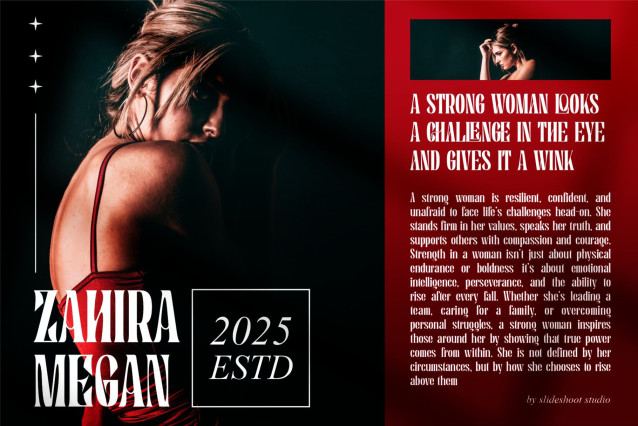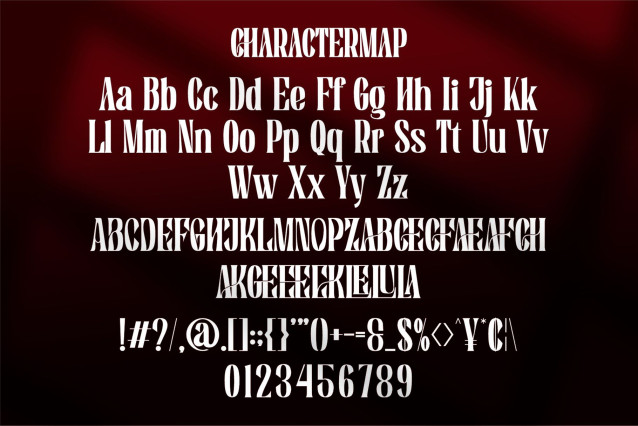
Ameklon Font
Ameklon Font is classic serif font, trendy, elegant and stylish font. It has a unique character. It is perfect to be combined with invitation card designs, company logos, movie titles, movie names, business cards, book titles, brand names and various other designs.